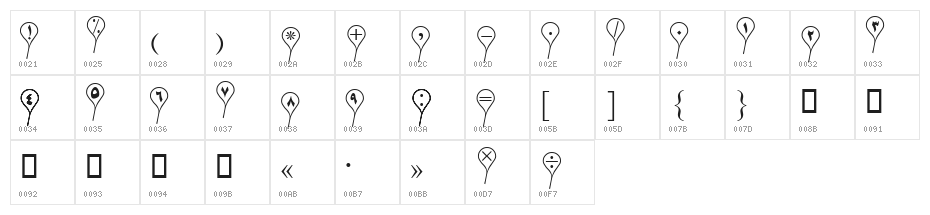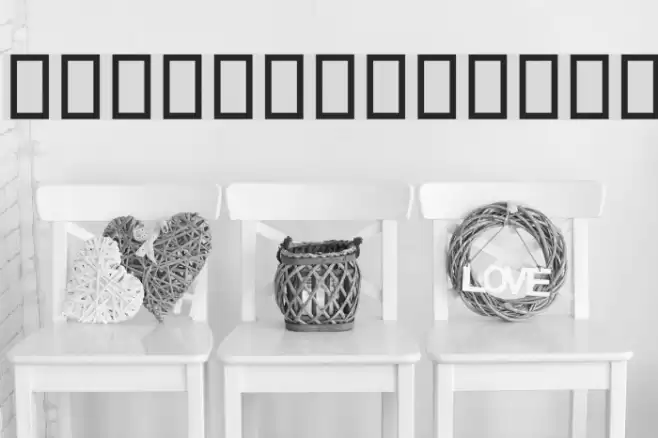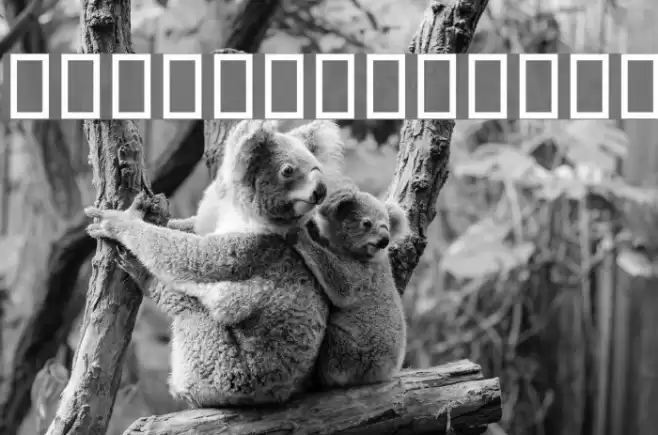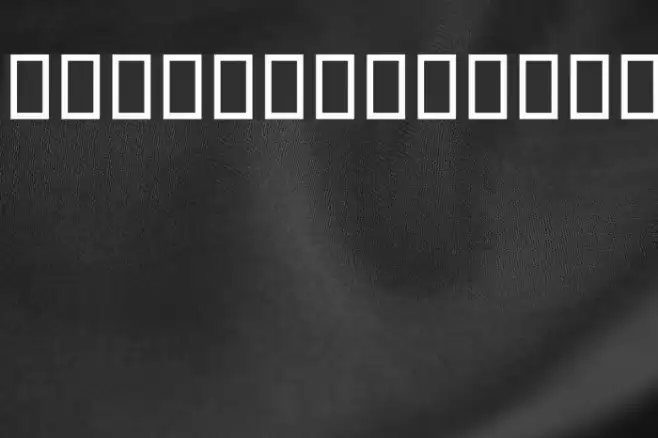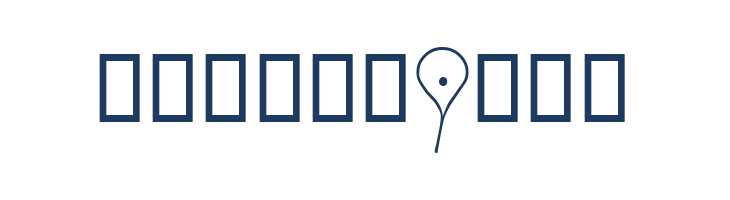
Poqhaanah Font
Poqhaanah Description
This font features a unique and playful design where each character is enclosed within a balloon-like shape. The numbers and special characters are stylized with a whimsical flair, adding a sense of fun and creativity. The characters are evenly spaced within their balloon shapes, creating a consistent and cohesive look. This font is ideal for projects that aim to convey a lighthearted and imaginative tone, such as children's books, party invitations, or playful branding materials. The overall style is decorative and distinct, making it stand out in any design.
گالری فانت فارسی پژوهش آريانا - only compatible with Farsi and Arabic
| Proposed Projects | Children's books, party invitations, playful branding, creative posters. |